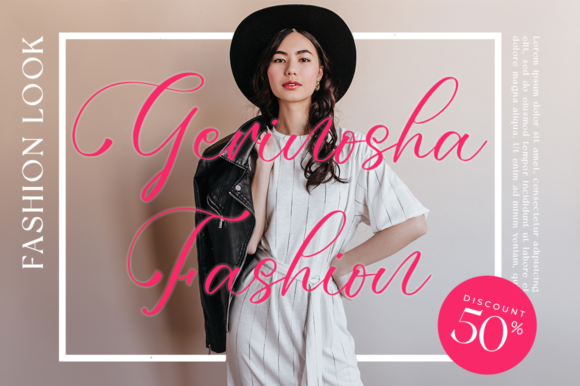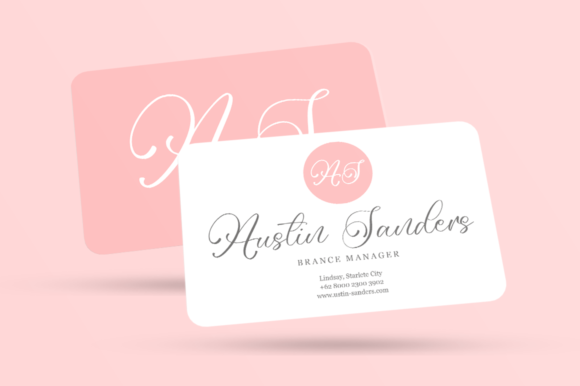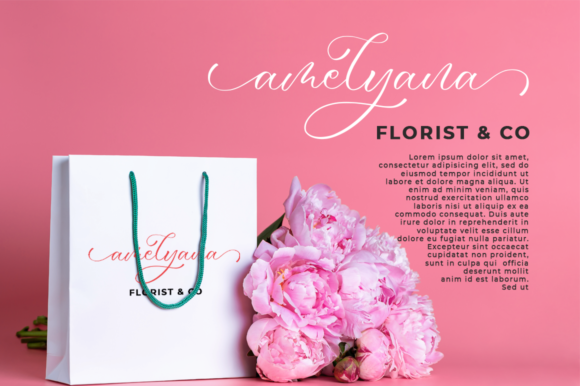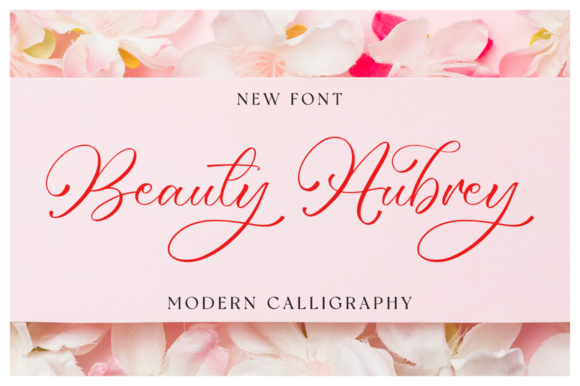
The Perfect Touch of Elegance: Beauty Aubrey Font
There’s something magical about creating something from scratch, watching an idea transform into a beautiful reality. For designers, that moment of inspiration often comes when searching for the perfect font to elevate a project. And that’s exactly where the Beauty Aubrey Font comes in – a stunning, handwritten font that adds a touch of sophistication to any design.
This elegant font is perfect for weddings, special occasions, and even everyday communications. Its unique blend of beauty and distinction makes it an invaluable asset for designers looking to add a customized touch to their work. With its PUA encoding, accessing all the glyphs and swashes is a breeze, making it a joy to work with. Whether you’re designing a wedding invitation or a business card, the Beauty Aubrey Font is sure to leave a lasting impression.
Beauty Aubrey Font Key Features
- Font Family: Beauty Aubrey is a script font designed to convey elegance and sophistication.
- Unique Characteristics: Features a flowing, handwritten style with subtle variations in line width and letterform to create a natural, handwritten look.
Beauty Aubrey Font Review
Overall, I think the Beauty Aubrey font has some great qualities, but it’s not perfect. Let’s dive into what works well and what doesn’t.
- Cursive script: The font has a beautiful, flowing cursive script that’s perfect for titles or headings.
- Legibility: Despite its scripty nature, the font is still quite legible, even at smaller font sizes.
- Playful feel: The font has a fun, whimsical feel that’s great for creative projects or branding.
- Limited font sizes: The font can become difficult to read at larger font sizes, and it may not be suitable for body text.
- Lack of bold weights: While the font has a bold version, it’s not as strong or dramatic as some other fonts in this style.
- May not be suitable for formal projects: The font’s playful feel may not be suitable for formal or professional projects.
Overall, I think the Beauty Aubrey font is a great choice for creative projects or branding, but it may not be the best fit for more formal or body text applications.
Some tips for getting the most out of the Beauty Aubrey Font include:
- Using it for headings and titles to add a touch of elegance.
- Pairing it with other fonts for a unique and stylish look.
- Using it for creative projects such as wedding invitations and baby announcements.